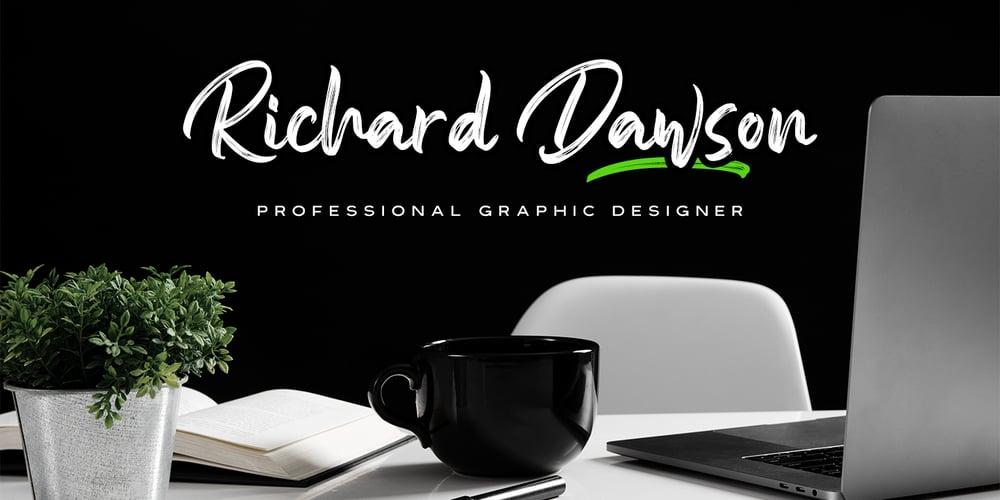
Someone
Someone font
Someone Font Family was designed by Abdul Malik Wisnu and published by Almarkha Type. Someone contains 2 styles and family package options. Introducing Someone – Textured Handbrush Script font with a Signature Style and classy style, this font is great for your creative projects such as watermark on photography, and perfect for logos & branding, photography, invitation, watermark,advertisements,product designs, stationery, wedding designs,label ,product packaging, special events or anything that need handwritting taste.